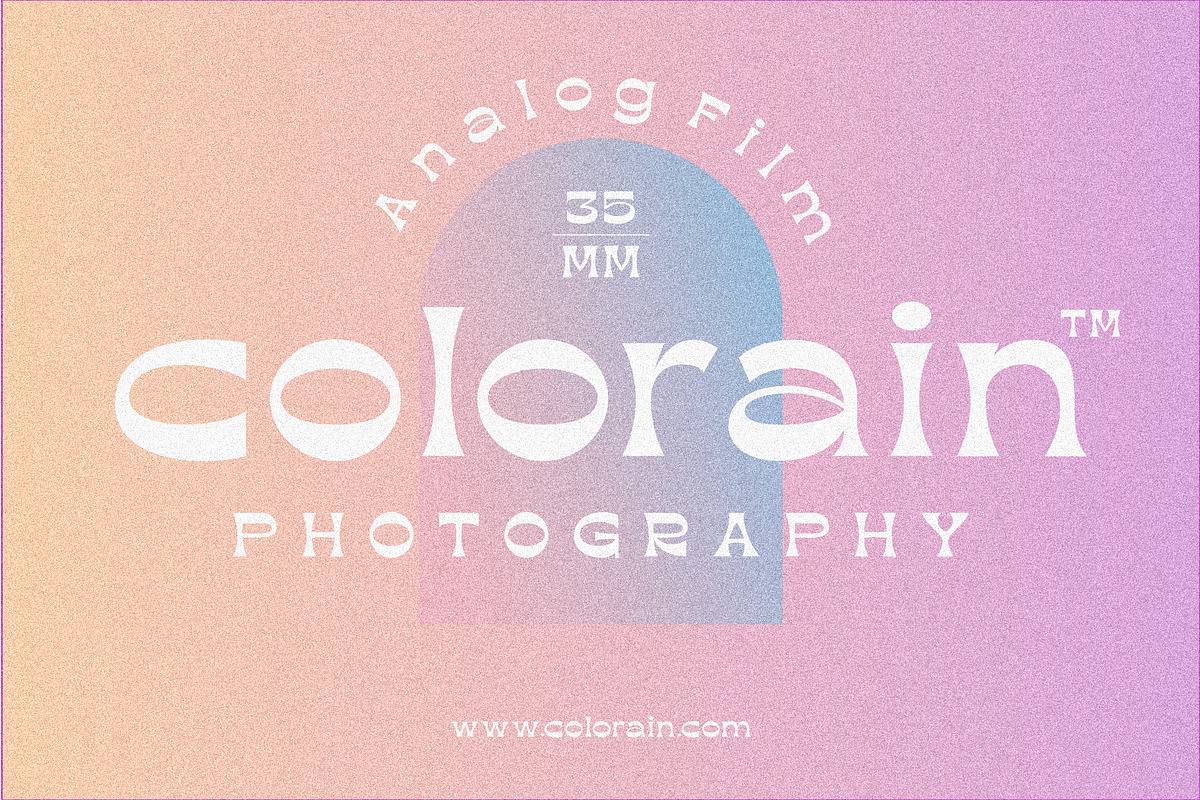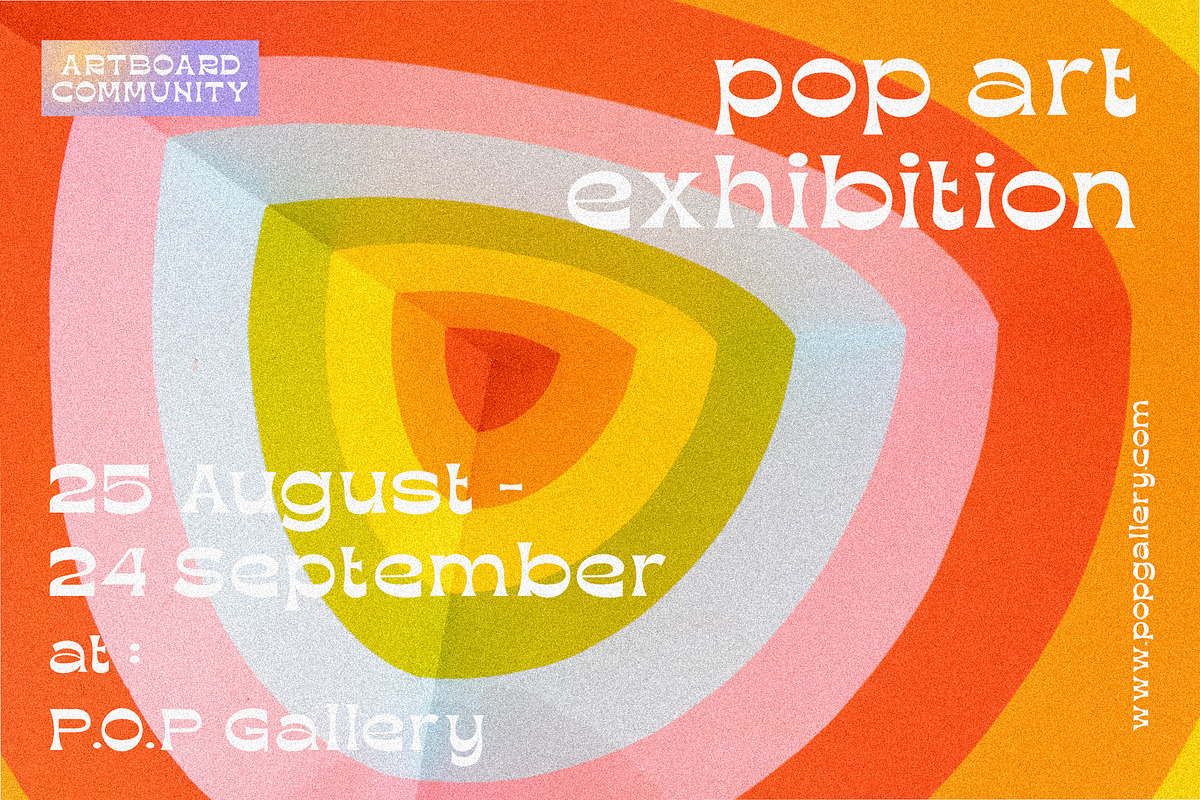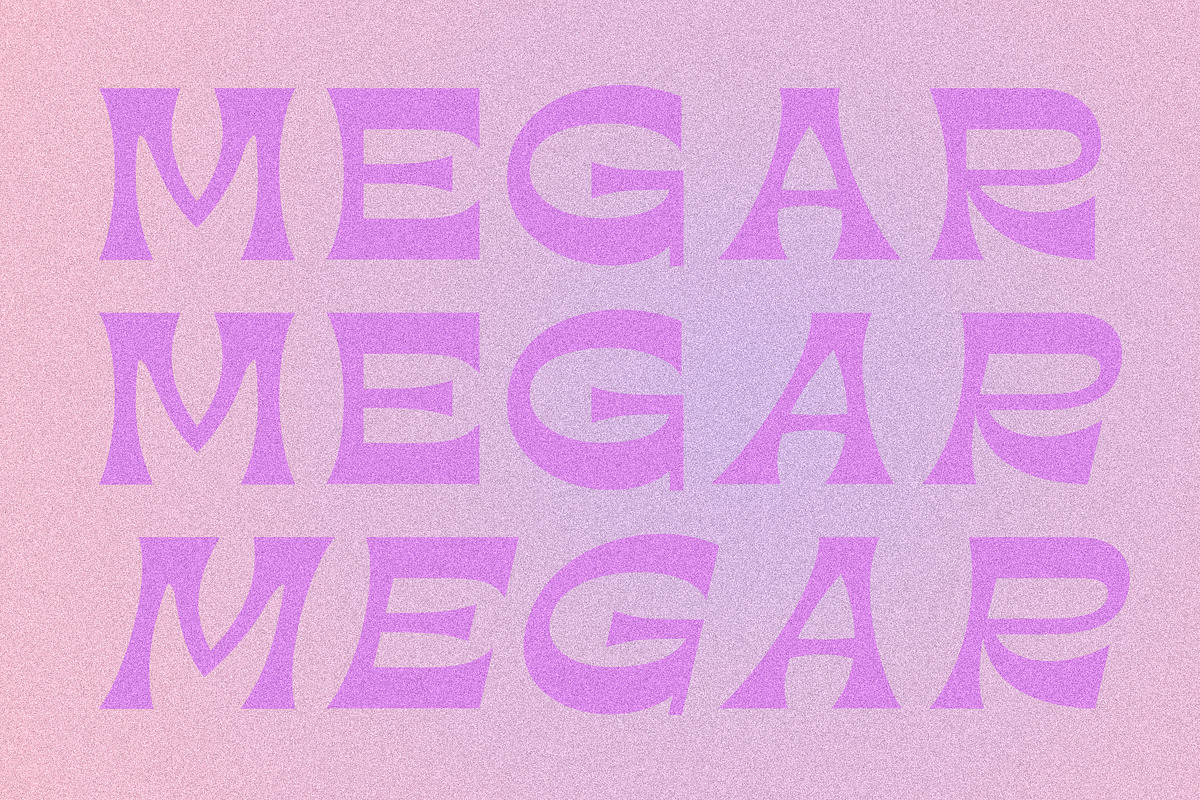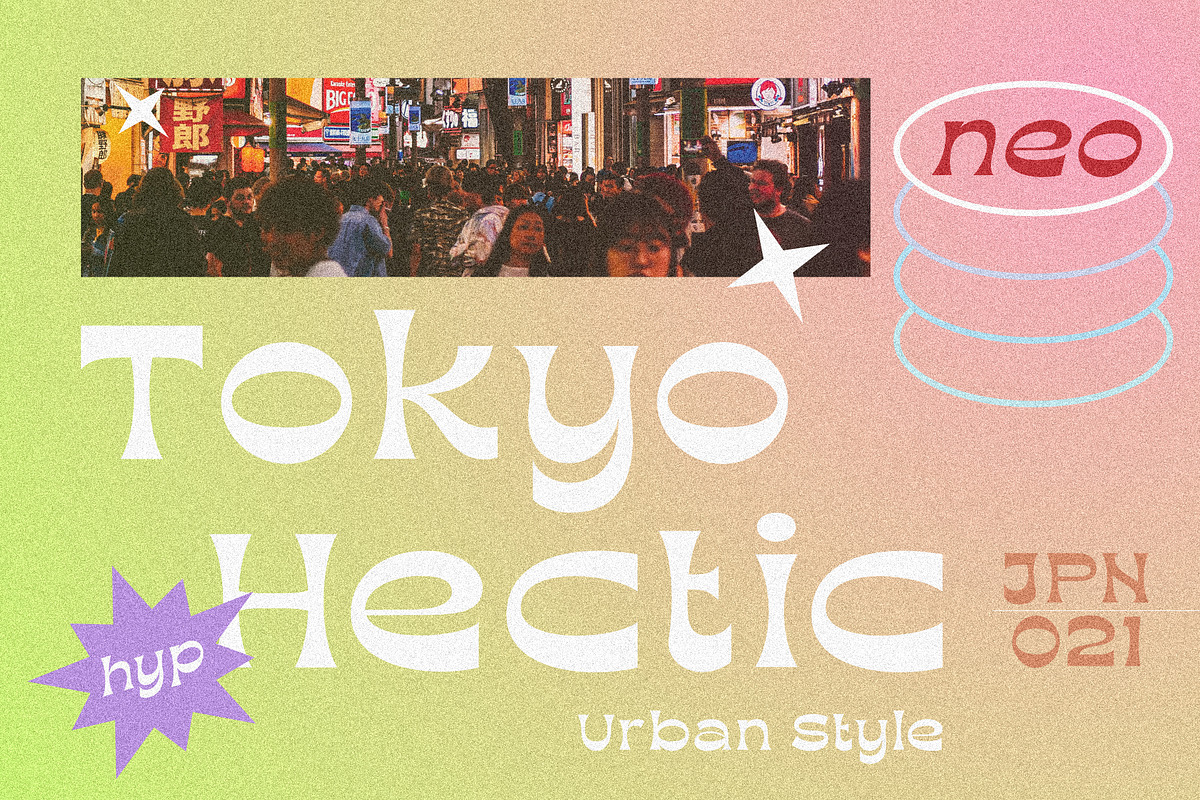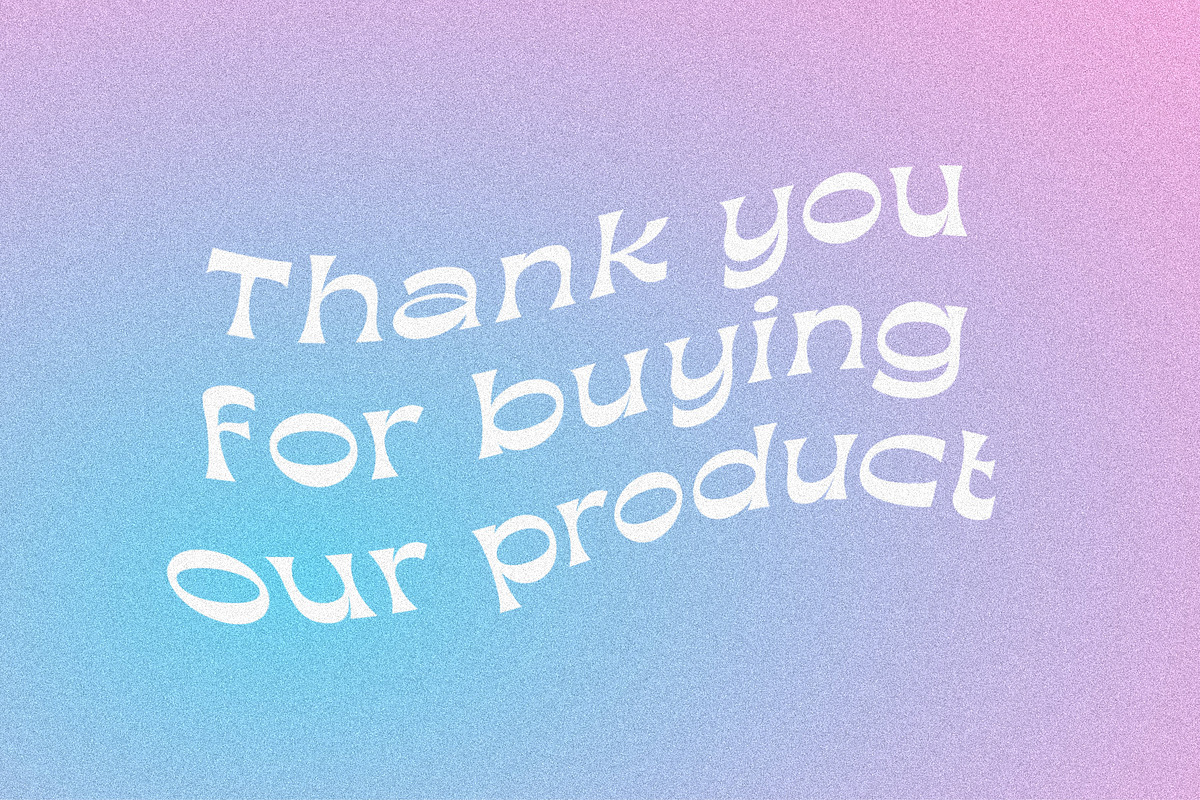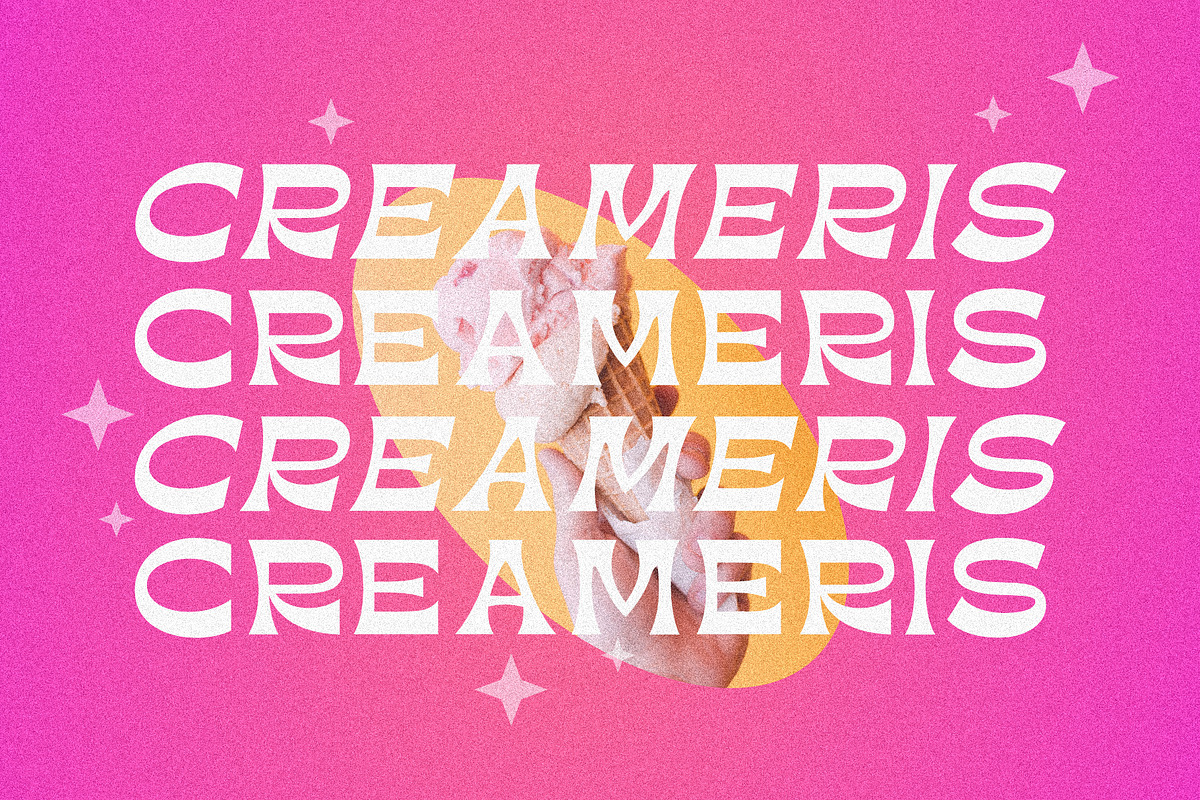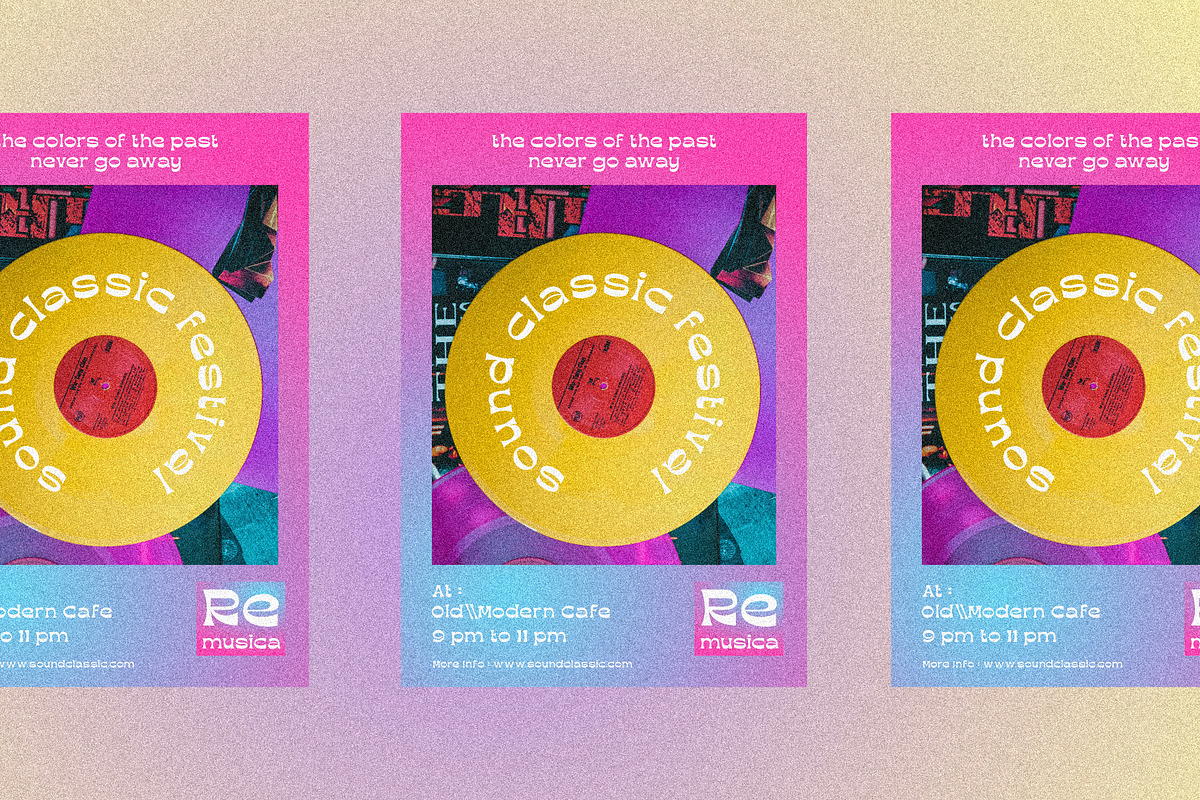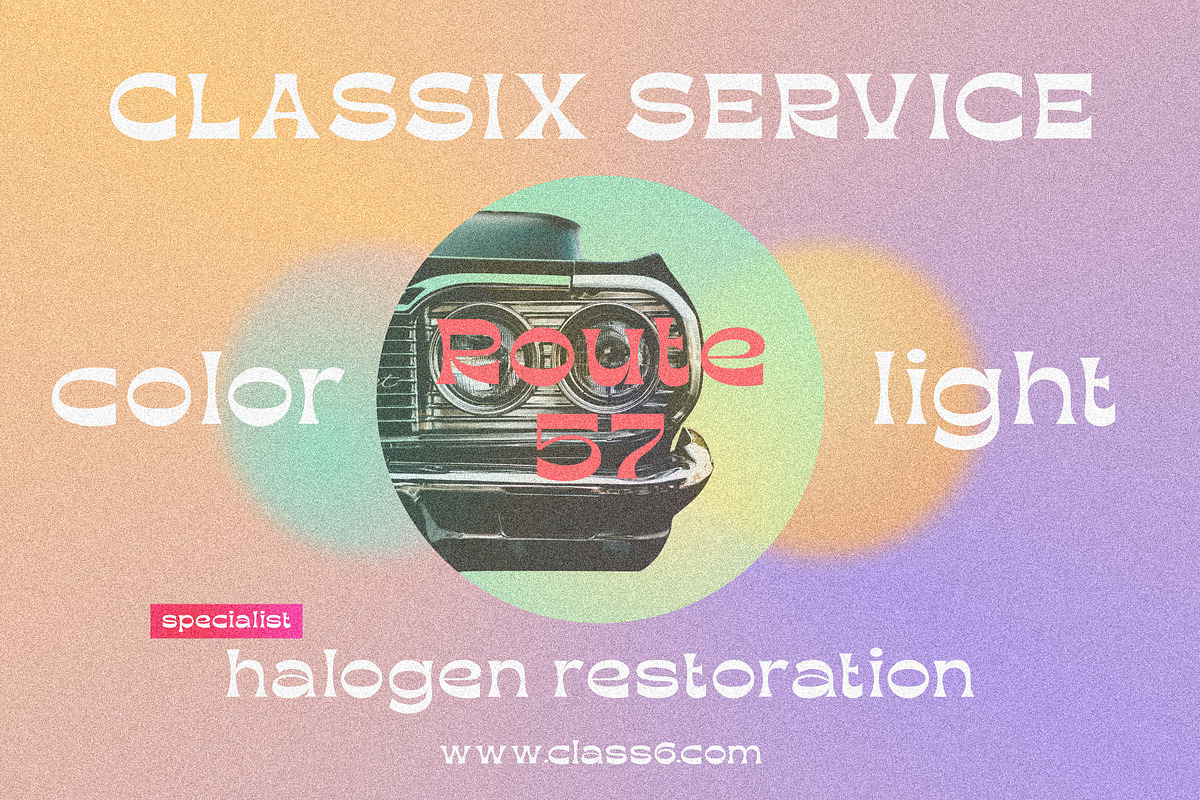
VT Megar - Retro Fonts
Introducing Megar Font, a stylish and captivating typeface that infuses retro charm with a modern twist. Designed to make your designs stand out, Megar features a unique reverse font style that adds a distinct and eye-catching element to any project. This versatile font comes in two variations: Regular and Oblique, providing you with the flexibility to achieve the perfect look for your creative endeavors.
Megar Font is perfect for a range of applications, from vintage-inspired branding and retro-themed posters to modern digital designs. Its bold and dynamic reverse style brings a nostalgic flair to your typography, making it ideal for catching attention and creating memorable visuals.
Elevate your design game with Megar Font—where retro vibes meet contemporary style. Ideal for graphic designers, marketers, and creatives looking for a standout typeface with a nostalgic twist. Boost your SEO and make your content unforgettable with Megar's unique style!